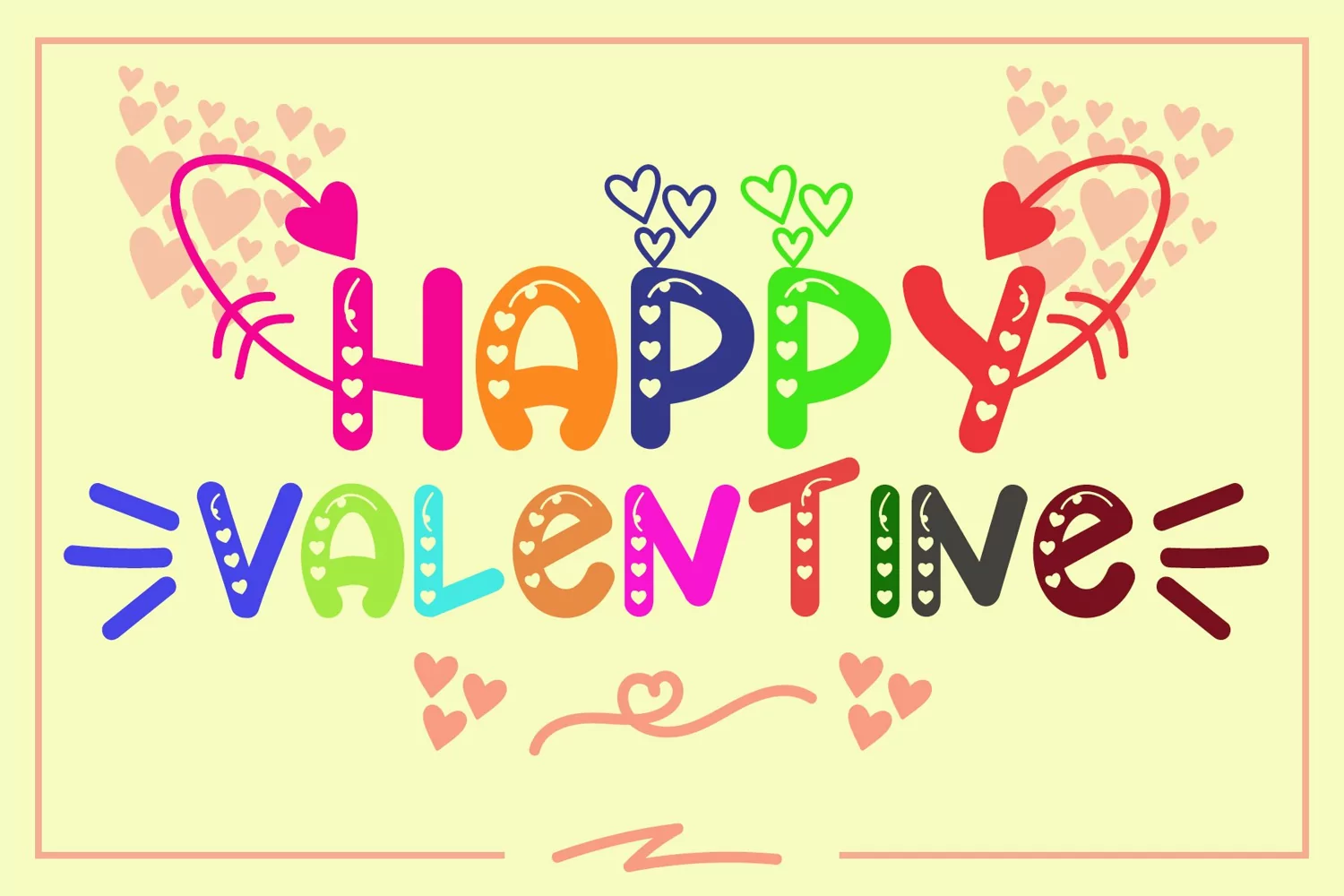
Fate of Love is display and decorative font inspired by love. Adding love emoticon, this font will give your design looks more playful and lovable.
+More than 250 Glyphs
+PUA-Encoded additional symbol and characters, esp love emoticon.
+Multilingual glyphs.